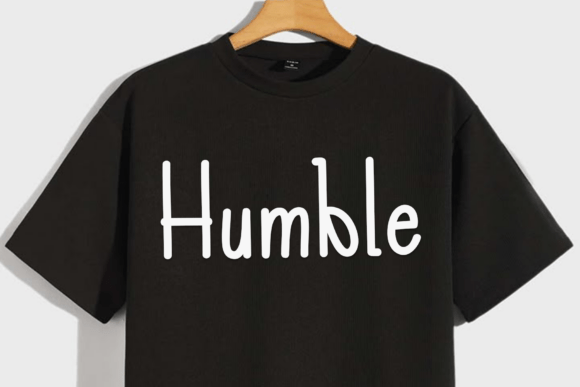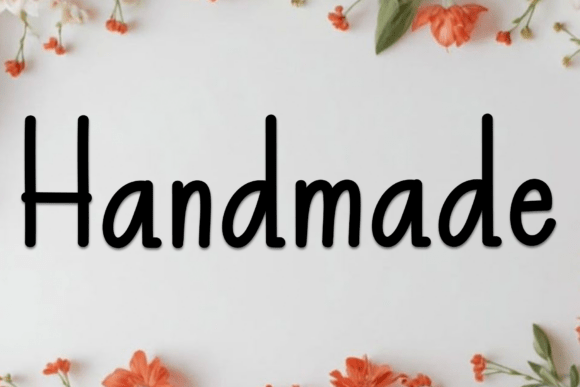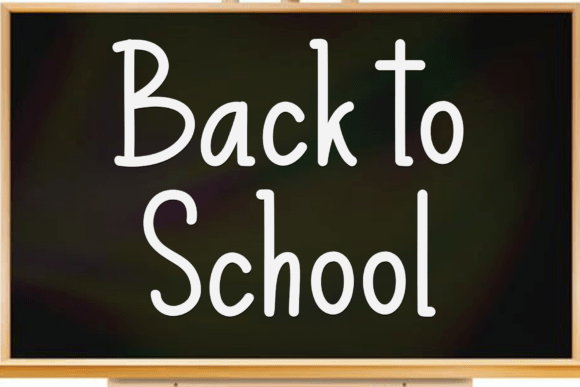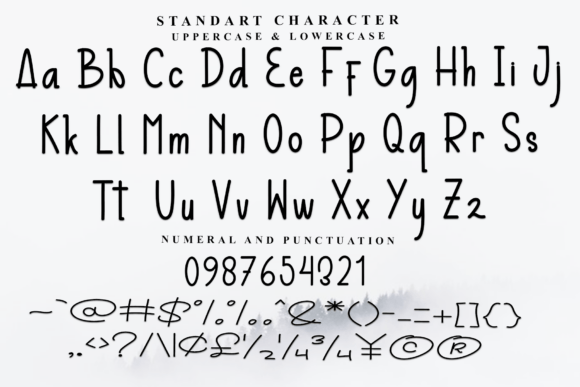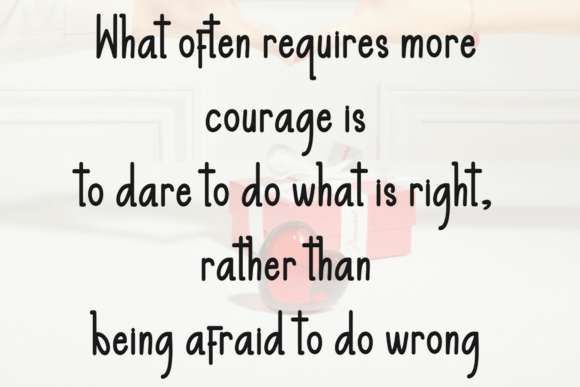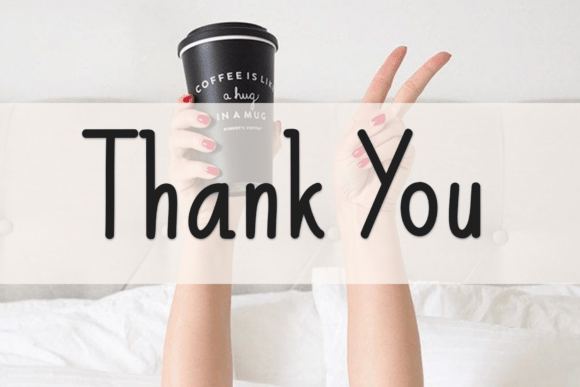
Discover the Charm of Beautiful Handwriting Font
In the world of typography, a beautiful handwriting font can elevate your design projects, crafts, and creative works to a new level. One such font that has captured the hearts of designers and crafters alike is the Beautiful Handwriting font. This stunning font is designed with a soft, unique touch that sets it apart from other fonts, making it a versatile and meaningful addition to any design.
The Unique Characteristics of Beautiful Handwriting Font
The Beautiful Handwriting font boasts distinctive strokes that give it a special character. Its soft and flowing lines create a sense of elegance and sophistication, making it perfect for a wide range of design projects. Whether you’re working on a logo, brochure, or social media graphics, this font is sure to add a touch of personality and whimsy to your designs.
One of the standout features of the Beautiful Handwriting font is its versatility. With a range of characters, you can experiment with different styles and combinations to create unique and eye-catching designs. This font is perfect for:
- Design projects: logos, brochures, posters, and social media graphics
- Crafts: handmade cards, scrapbooking, and DIY projects
- Creative works: journals, planners, and stationery
The Benefits of Using Beautiful Handwriting Font
So, why choose the Beautiful Handwriting font for your design projects? Here are just a few benefits:
- Enhanced visual appeal: The font’s unique and elegant design will add a touch of sophistication to your projects.
- Increased creativity: With a range of characters and styles to experiment with, you can push the boundaries of your creativity.
- Time-saving: The font’s versatility means you can use it across multiple projects, saving you time and effort.
Tips for Using Beautiful Handwriting Font
To get the most out of the Beautiful Handwriting font, here are a few tips:
- Experiment with different sizes and styles: Play around with different font sizes and styles to find the perfect combination for your project.
- Pair it with other fonts: Combine the Beautiful Handwriting font with other fonts to create a unique and visually appealing design.
- Use it consistently: Use the font consistently throughout your project to create a cohesive and professional look.
The Beautiful Handwriting font is a stunning addition to any design project, craft, or creative work. Its unique and elegant design, versatility, and compatibility make it a valuable resource for designers and crafters. Whether you’re looking to add a touch of personality to your designs or create a cohesive brand identity, this font is sure to impress. So why not give it a try and discover the charm of Beautiful Handwriting font for yourself?